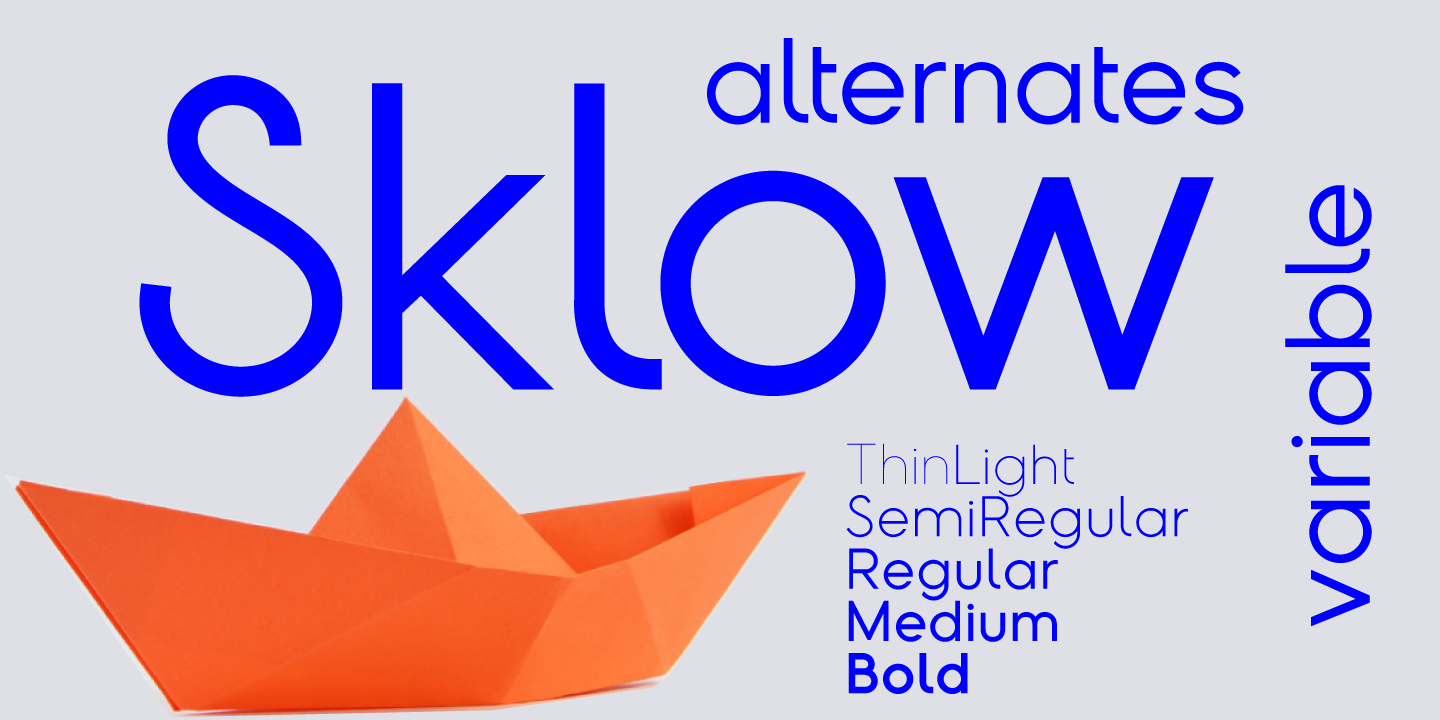
Sklow Font is perfect for meditation center branding, mindfulness app interfaces, wellness retreat materials, yoga studio signage, relaxation product packaging, spa and therapy logos, peaceful lifestyle brands, calm social media graphics, and tranquil businesses that promote serenity, mindfulness, and slow living philosophy.
Sklow Font brings excitement through its gentle, flowing character design and serene letterforms that embody the essence of calm mindfulness and peaceful living. This soothing typeface features soft curves and relaxed proportions that create an immediate sense of tranquility and balance. The font's unhurried appearance and meditative quality make it perfect for brands and projects that want to communicate peace, wellness, and the beauty of slowing down in our fast-paced world.
Sklow Font family includes Thin, Light, Regular, Medium, and Rounded variations. Each style maintains the font's characteristic peaceful appeal while providing different levels of softness and visual calm for comprehensive design flexibility across wellness and mindfulness-focused applications.
The tranquil charm of Sklow Font Free Download lies in its ability to create visual spaces that encourage pause, reflection, and peaceful contemplation through typography. Whether you're designing for wellness industries, meditation services, or slow living brands, this font adds genuine serenity and calming presence to your communications.
Sklow Font excels in both digital wellness applications and printed mindfulness materials, maintaining its gentle readability and peaceful appeal across all platforms. From meditation apps to wellness retreat brochures, this versatile typeface ensures your message communicates tranquility, balance, and mindful living to audiences seeking peace and authentic wellness experiences.